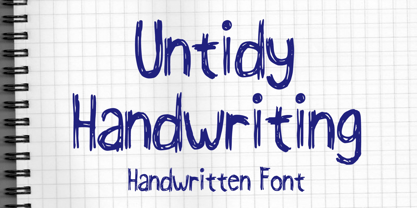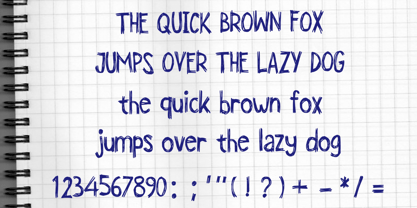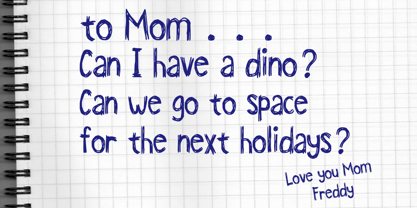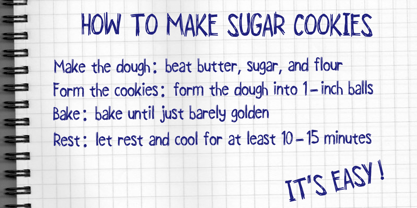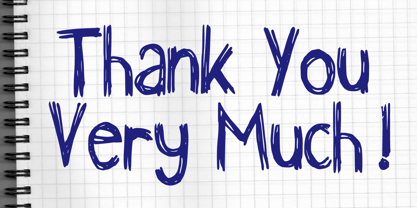
Untidy Handwriting
by Mvmet
The Untidy Handwriting Font Family was designed by Gabriel Valentinus and published by Mvmet. Untidy Handwriting contains 1 styles. More about this family
Untidy Handwriting is a fun, playful sketchy, a bit scribble handwritten font. It will elevate a wide range of design projects to the highest level. You can use this font for many design ideas such as stickers, t-shirt designs, amazing logo designs, magazine or book covers, comics, cartoon drawings, and many more. This font will add a super cool touch to your designs!
Designers: Gabriel Valentinus
Foundry: Mvmet